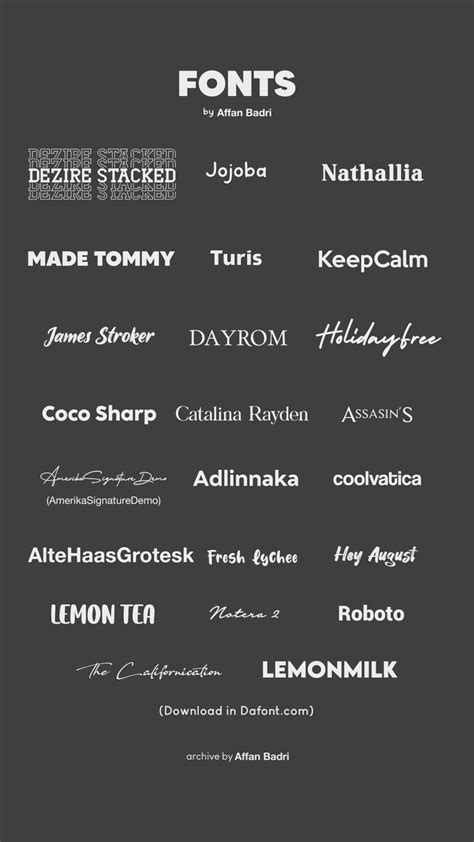
The Best Free Fonts For Affinity Designer: Unlock the Power of Typography!
Fonts are an essential part of any design project. They can help you communicate your message and set the tone for your project. Fonts also add personality to your work, making it more visually appealing and professional looking. With Affinity Designer, you can easily add fonts to your work in order to make it stand out.The Best Free Fonts for Affinity Designer
There are many great free fonts available for use with Affinity Designer. Here are some of the best:1. Alegreya
Alegreya is a beautiful serif font designed by Juan Pablo del Peral. It features a classic, sophisticated look and is perfect for creating elegant designs. Alegreya is available in both regular and bold weights, as well as italic and bold italic variations.2. Source Sans Pro
Source Sans Pro is a sans-serif font designed by Paul D. Hunt. It is a modern, clean font that is perfect for creating minimalistic designs. Source Sans Pro is available in regular, bold, italic and bold italic weights.3. Roboto
Roboto is a sans-serif font designed by Christian Robertson. It is a modern, clean font that is perfect for creating bold designs. Roboto is available in regular, bold, italic and bold italic weights.4. Montserrat
Montserrat is a sans-serif font designed by Julieta Ulanovsky. It is a modern, clean font that is perfect for creating minimalistic designs. Montserrat is available in regular, bold, italic and bold italic weights.Example of The Best Free Fonts For Affinity Designer
For example, you can use Alegreya to create a logo for your brand. This font is elegant and sophisticated, and will help to make your logo stand out. You can also use Source Sans Pro to create a modern website layout. This font is modern and clean, and will help to make your website look professional.The Power of Typography
Using fonts in Affinity Designer is a great way to unlock the power of typography. Typography is an important part of any design project, and having access to the right fonts can make all the difference. With the help of Affinity Designer, you can easily add fonts to your work and create stunning visuals.Conclusion
The best free fonts for Affinity Designer are Alegreya, Source Sans Pro, Roboto, and Montserrat. These fonts are perfect for creating elegant, modern, and bold designs. With the help of Affinity Designer, you can easily add fonts to your work and unlock the power of typography.Designers are always looking for ways to make their work stand out, and the right fonts can help you do that. With the help of Affinity Designer, you can easily add fonts to your work and create stunning visuals. So don't forget to take advantage of the best free fonts for Affinity Designer and unlock the power of typography!Source: CHANNET YOUTUBE Pixel Design School